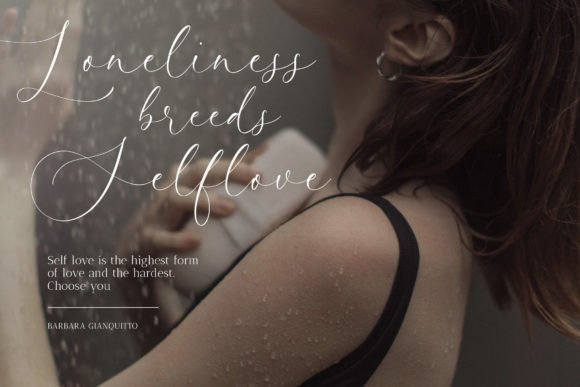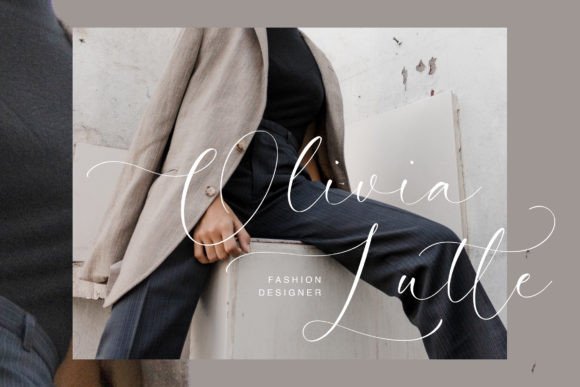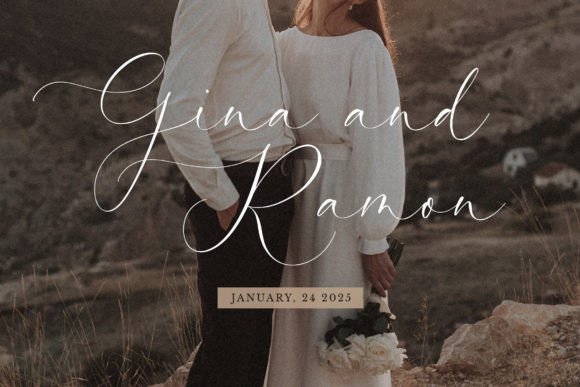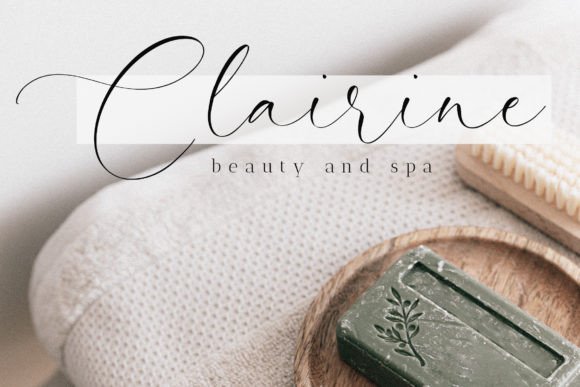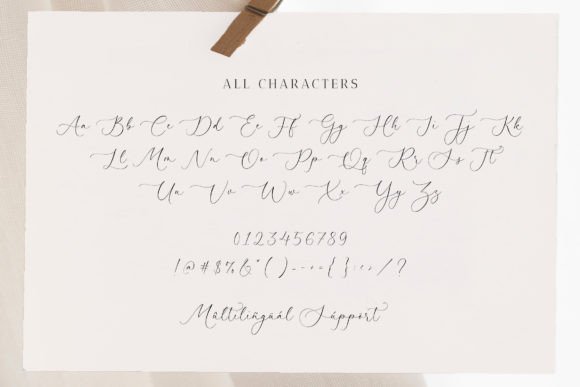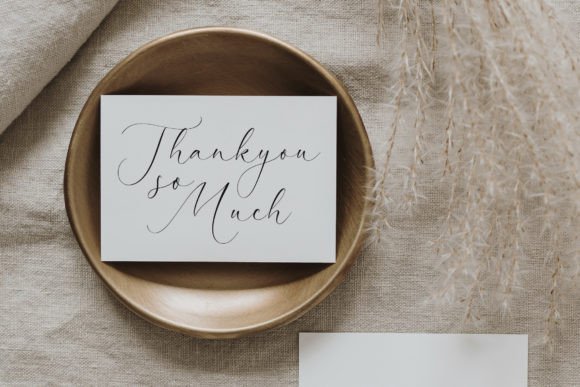
Discover the Timeless Elegance of Baritone Harmony Font
Have you ever stumbled upon a design that instantly sparks creativity and sets your imagination ablaze? For many designers, this moment is a fleeting yet invaluable experience that inspires new ideas and fresh perspectives. For us, it’s the moment we discovered the Baritone Harmony Font – an exquisite handwritten font that effortlessly blends classy calligraphic influences with a contemporary, fresh feel.
The Baritone Harmony Font is more than just a beautiful font; it’s a powerful tool for designers seeking to elevate their projects to new heights. With its versatility and sophistication, it’s perfect for a wide range of applications, from elegant invitations and wedding stationery to modern logos and branding materials.
By incorporating the Baritone Harmony Font into your design repertoire, you’ll unlock a wealth of creative possibilities and take your projects to the highest levels of style and sophistication.
Baritone Harmony Font Key Features
- Font Family: Baritone Harmony Font is a unique, hand-crafted font family designed specifically for music notation and harmony analysis. It is available in two font families: Baritone Harmony and Baritone Harmony Bold.
- Unique Characteristics: The Baritone Harmony Font features a distinctive, hand-drawn design that is optimized for music notation and harmony analysis. The font includes a range of special characters and symbols, including chord symbols, interval markings, and other music notation elements.
- Character Set: The font includes a comprehensive character set, including Latin, Cyrillic, and Greek alphabets, as well as a range of musical symbols and notation elements.
Baritone Harmony Font Review
Overall, I found the Baritone Harmony font to be a pleasant addition to any digital design project. ✨ Its unique blend of sophistication and playfulness makes it perfect for titles and headings that need to stand out from the rest.
The font’s bold and confident lines add a sense of depth and dimensionality to any text, making it ideal for use in logos, branding materials, and other visual identity elements.
- Unique blend of sophistication and playfulness
- Bold and confident lines add depth and dimensionality
- Perfect for titles and headings that need to stand out
- ⚠️ May be difficult to read in smaller font sizes
- ⚠️ Not ideal for large blocks of text
- ⚠️ Limited language support
While the Baritone Harmony font has some limitations, its strengths far outweigh its weaknesses. I would definitely recommend it to designers looking for a unique and eye-catching font for their next project.
The Baritone Harmony Font is ideal for music-related projects, such as song lyrics, music sheets, and album artwork. It’s also suitable for use in typography-based designs, such as posters, flyers, and business cards.